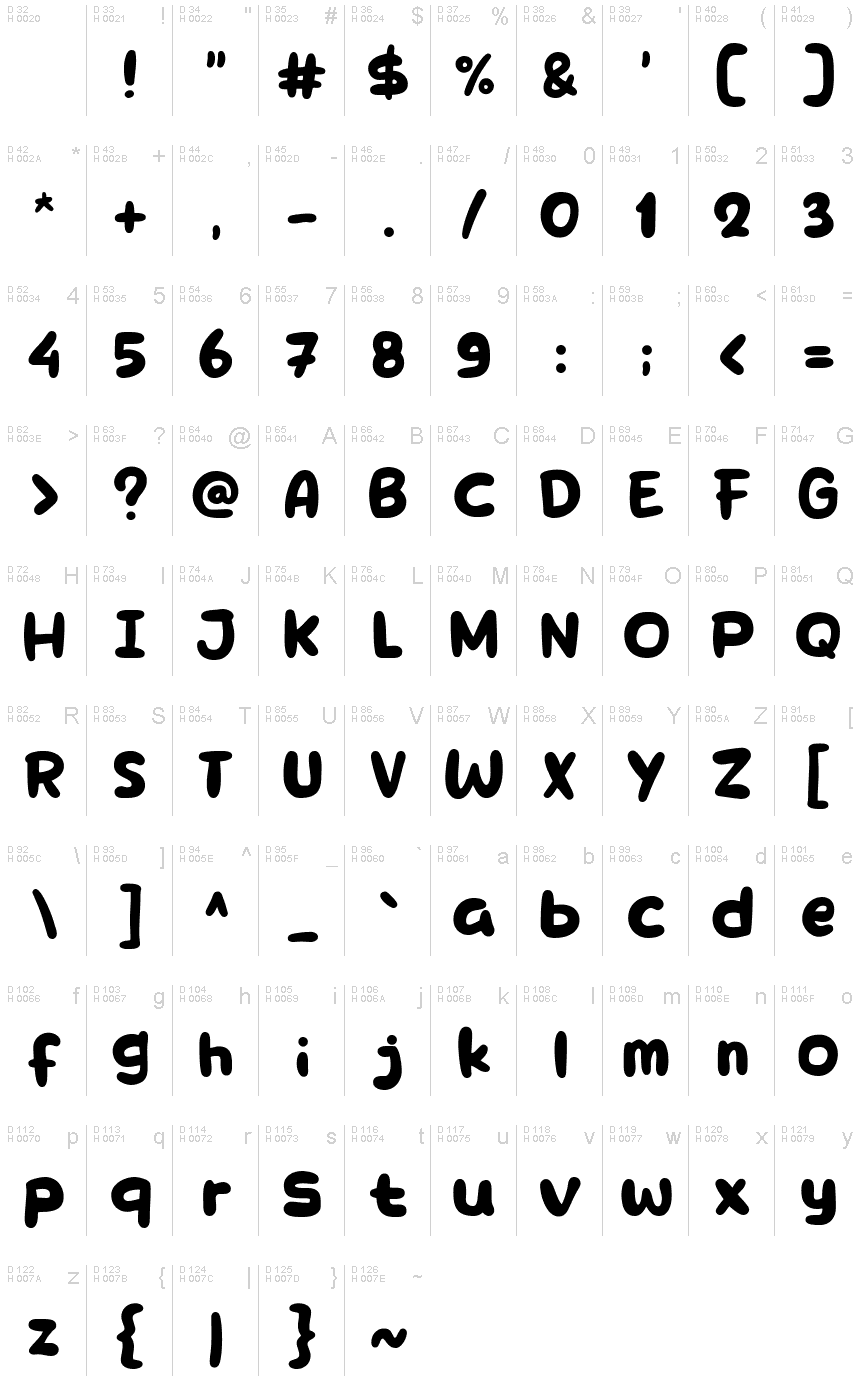
New Bread
New Bread, a bold and vibrant display font designed by Khurasan, brings an element of playful charm to any project.
Its cartoon-inspired style makes it perfect for children's book covers, animated logos, and whimsical posters. This attention-grabbing typeface adds a touch of liveliness to packaging designs for snacks or bakery products. With its bold weight, New Bread stands out on menus for family-friendly restaurants or cafes.